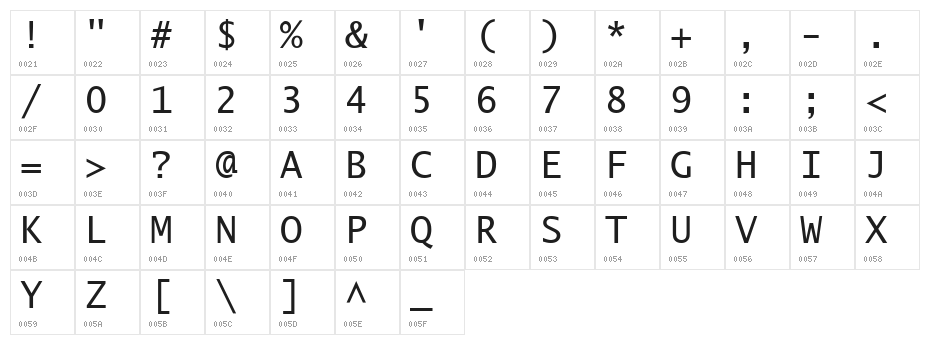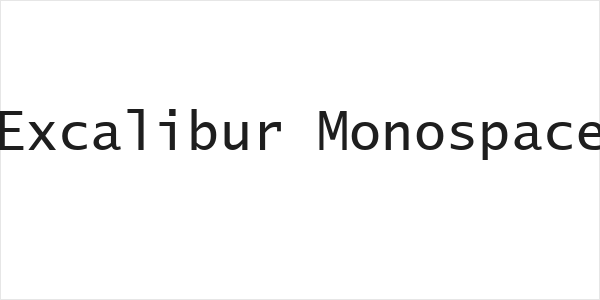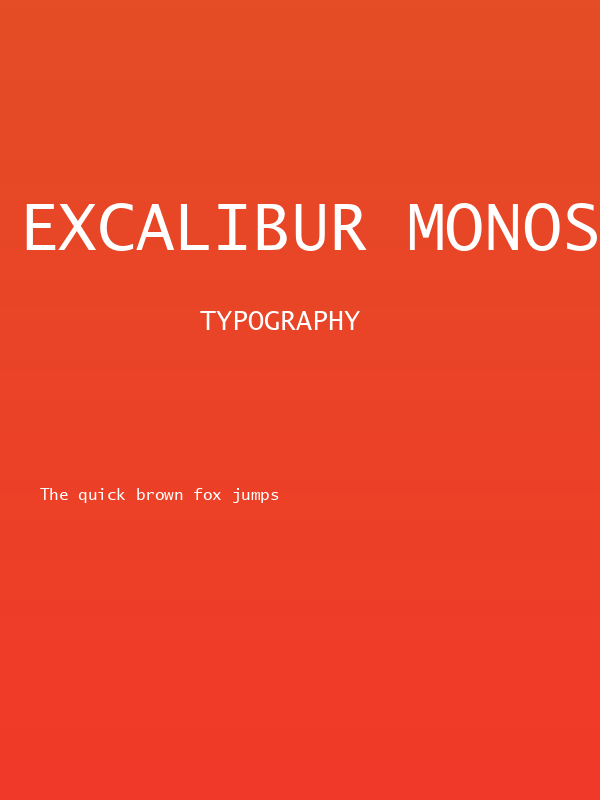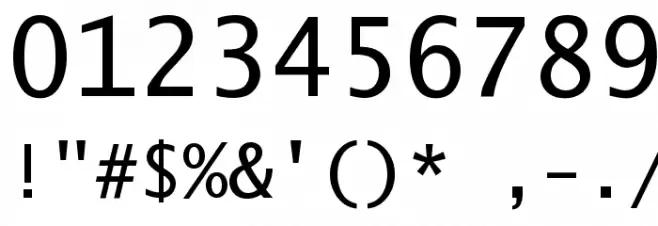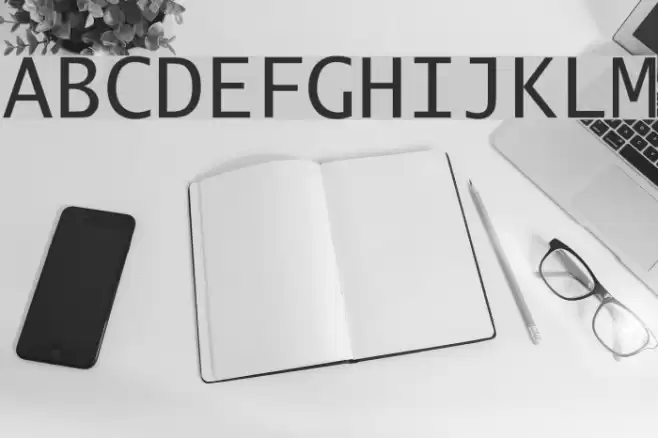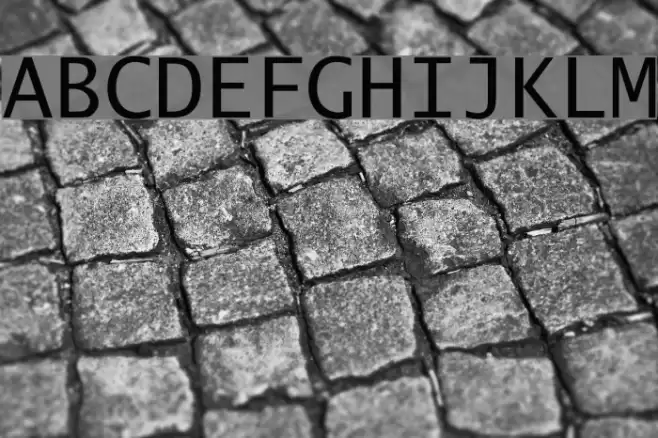
Excalibur Monospace Font
Excalibur Monospace Description
This monospaced font features a clean and modern design, characterized by uniform character width which ensures consistent alignment. The uppercase and lowercase letters are well-proportioned, with a slight geometric influence that adds to its contemporary appeal. The numerals are clear and distinct, making them ideal for coding or tabular data. Special characters are well-defined, maintaining the font's overall clarity and legibility. The simplicity of the design makes it versatile for various applications, while the even spacing between characters enhances readability.
| Use Case | Coding, Technical documentation, Data tables |
| Proposed Projects | Ideal for coding environments, technical documentation, data tables, and any project requiring precise alignment. |